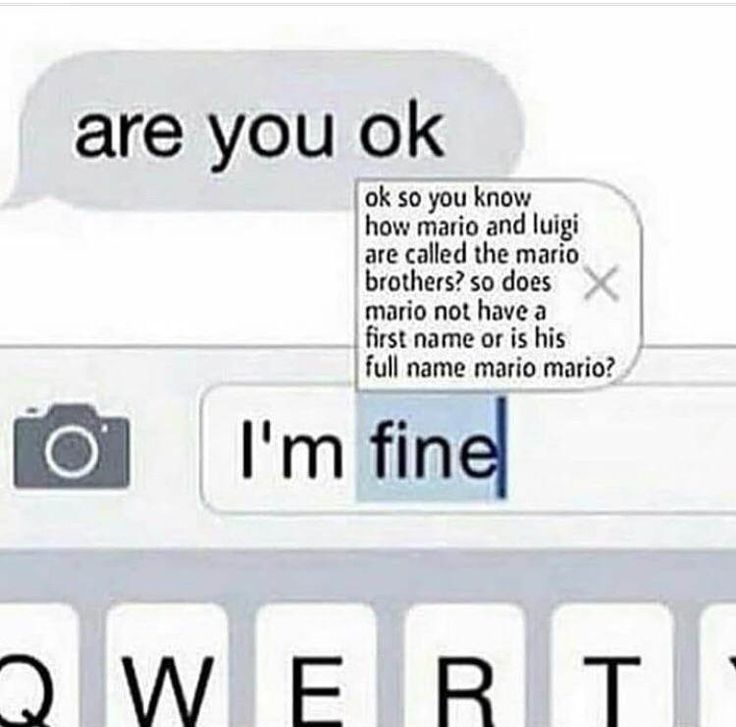
If you want to create similar memes, you can use the impact font to add a caption to your images, you could also use other fonts but impact is the most used font for memes as said. Do you have a wacky ai that can write memes for me?
The vast majority of internet meme pictures use impact font, and a small amount use arial or comic sans.
The fonts in use section features posts about fonts used in logos, films, tv shows, video games, books and more; Mar 20, 2012 at 19:46. In photoshop, >create your text line using impact (all caps is the meme usual) >right click the text layer.
Modern meme makers are naming montserrat as a favorite font. There are more funny jokes and sayings every day. What font is used for memes today?
What’s your favorite aesthetic font from the list? Using montserrat, you have the best of both worlds. This is a simple meme template with the impact font on the top and bottom of the.
What font do meme pictures use? The most used meme font is called impact and the typeface was designed by geoffrey lee in 1965. For an aesthetic meme font, helvetica’s got you again.
Montserrat if you can’t decide between a serif and a sans serif, then this is the perfect font. In doubt please refer to the readme file in the font package or contact the designer directly. Best fonts for video 1.
The memes are becoming more advanced; Check out the top 8 best fonts for videos that can help you stand out in the crowd. Arial font used as meme font for a funny meme
What font do meme pictures use? The meme font is a dingbats, heads font designed by zanatlija. Drag the text to wherever you want it to appear.
This is because it is a simple to read font and people will have no problems with this. Drag it to the top to create top text or to the bottom to create bottom text. This font, helvetica, was designed by max miedinger in 1957, and it rapidly became the most popular sans serif in the world.
It got so much associated with memes that people associate it as the meme font. Used for many memes and other places, thanks. The default font is the impact font meme style (i.e.
Hopefully if you create your own memes, you already know to use the font impact with a 6px border so i wont go there. Impact suggested by frd #2. A way of describing cultural information being shared.
It has become popular because it's very similar to the twitter font so that it blends in with tweet reposts and screenshot memes. Impact is the font of memes, and arial is a name you don’t want to associate yourself with. Silhouette cameo, cricut explore, printable stickers.
Mar 20, 2012 at 19:42. While the font selection is at the discretion of the image maker the vast majority of internet meme pictures use impact font. (a small minority use arial and an even smaller minority use comic sans.)
So, we know now that most of the internet memes that we are going to find use impact font. Best meme font you need to create the funniest meme > part 1 top 8 best fonts for video. It’s what we call and hybrid font and works perfectly for almost any case.
The simple answer to this question is the impact font. Animated meme templates will show up when you search in the meme generator above (try party parrot). If you’re looking for the classic twitter style meme format, use helvetica light.